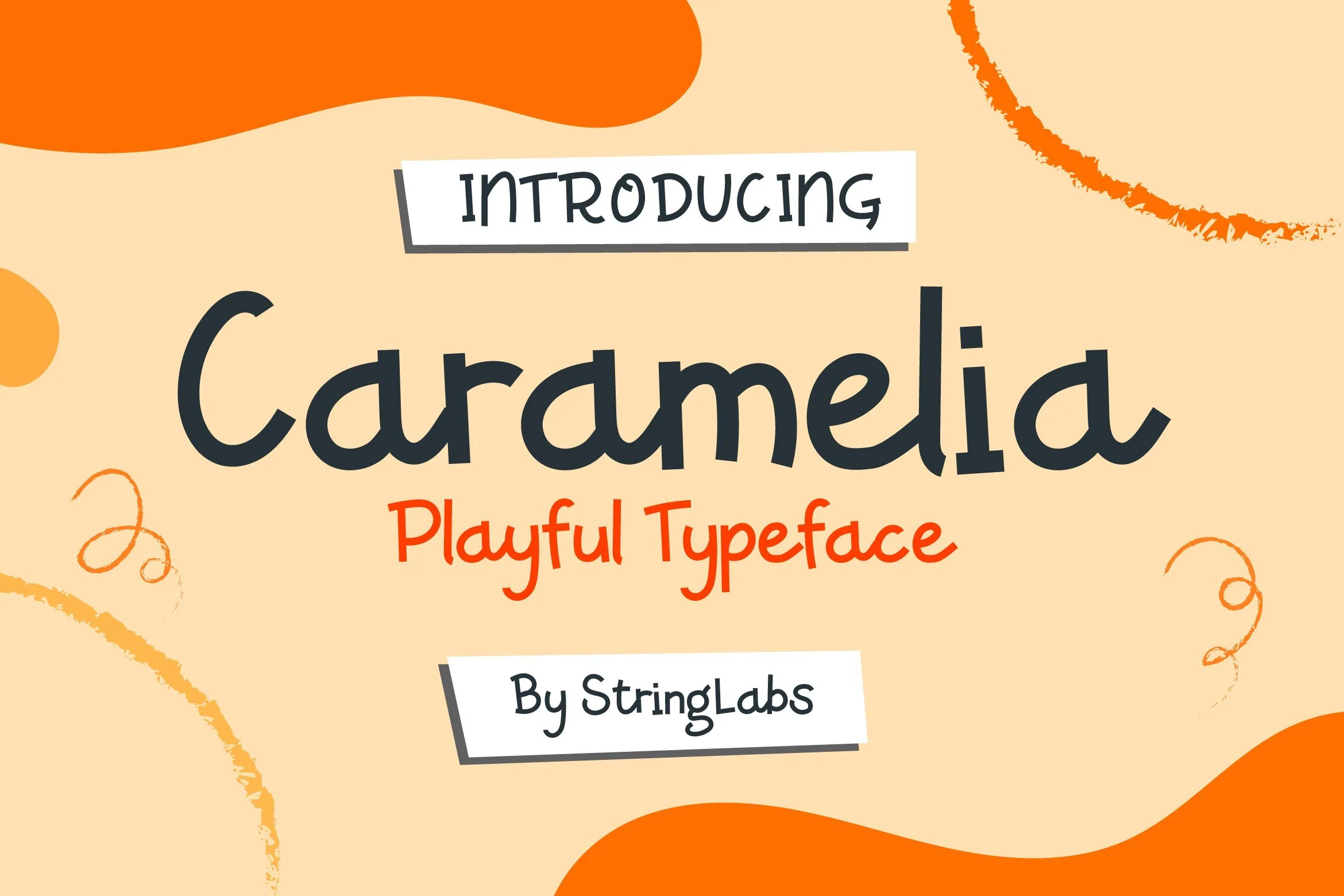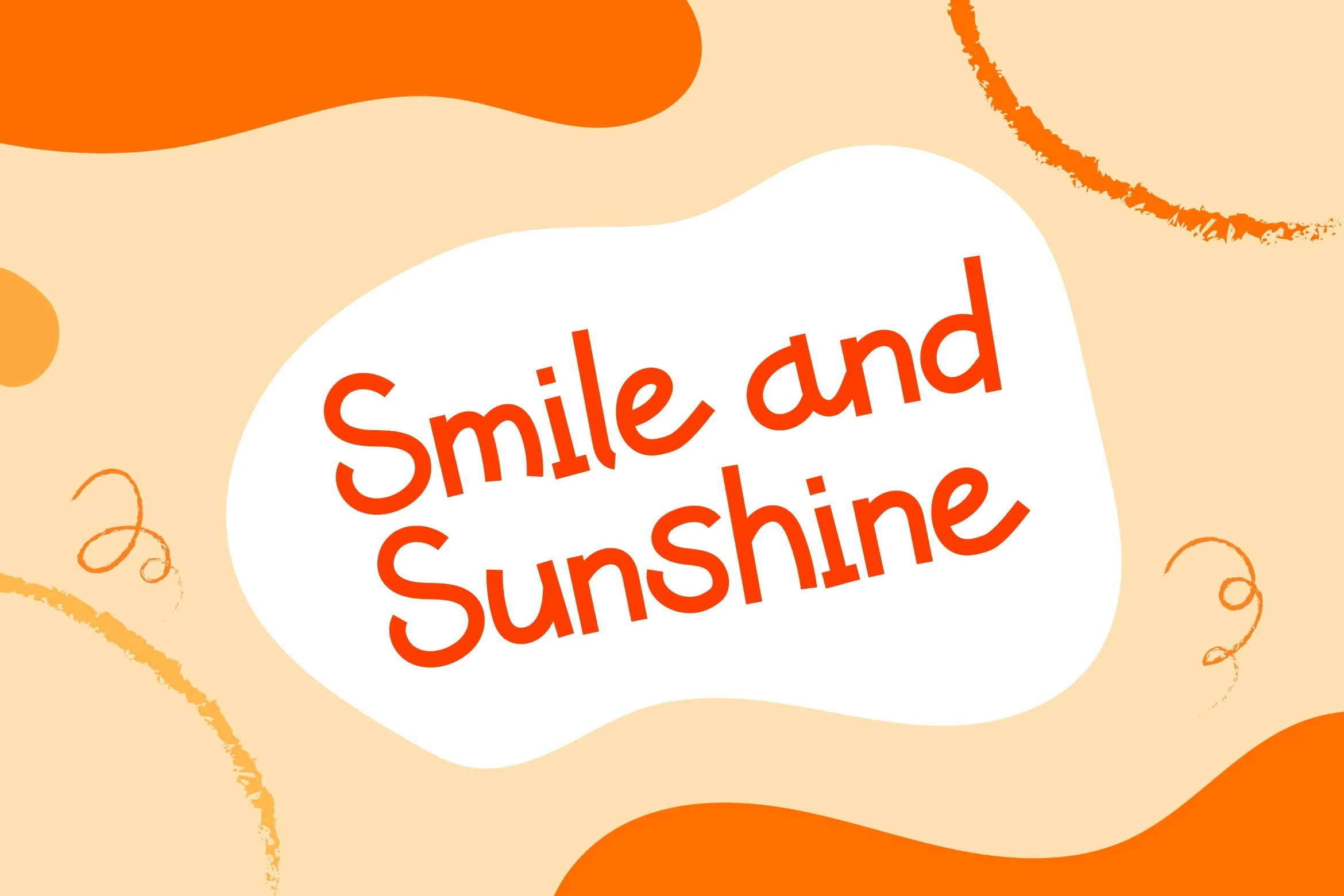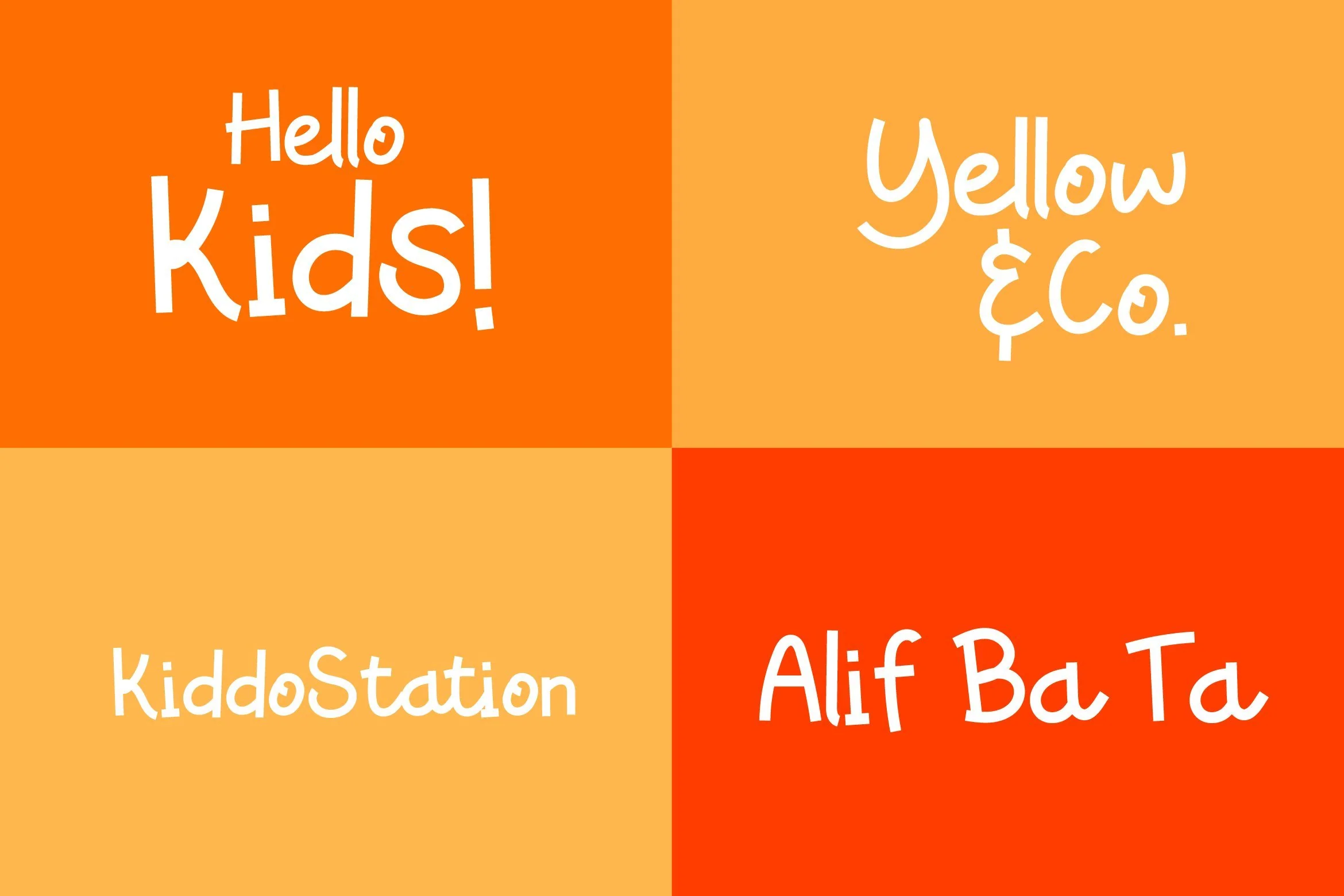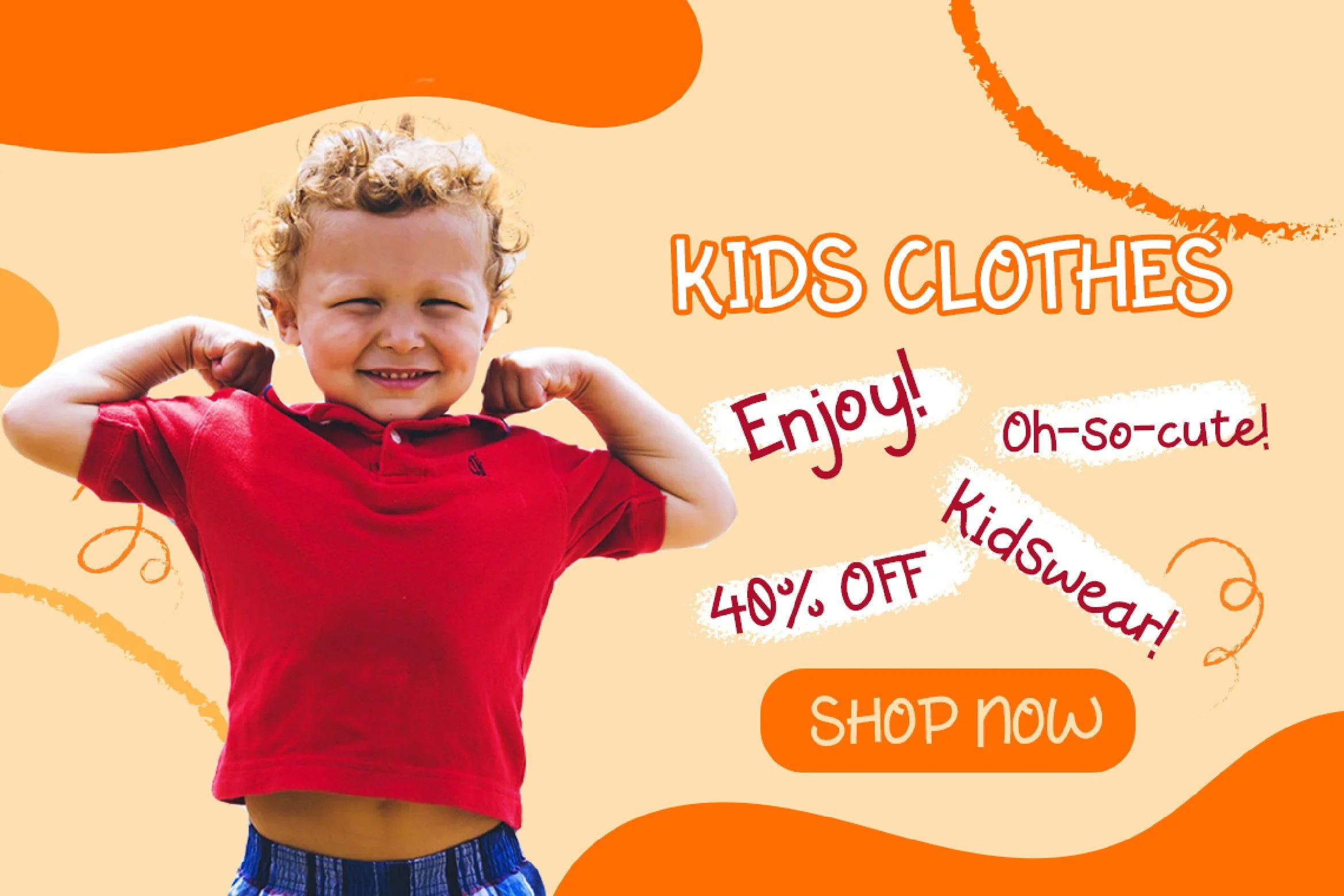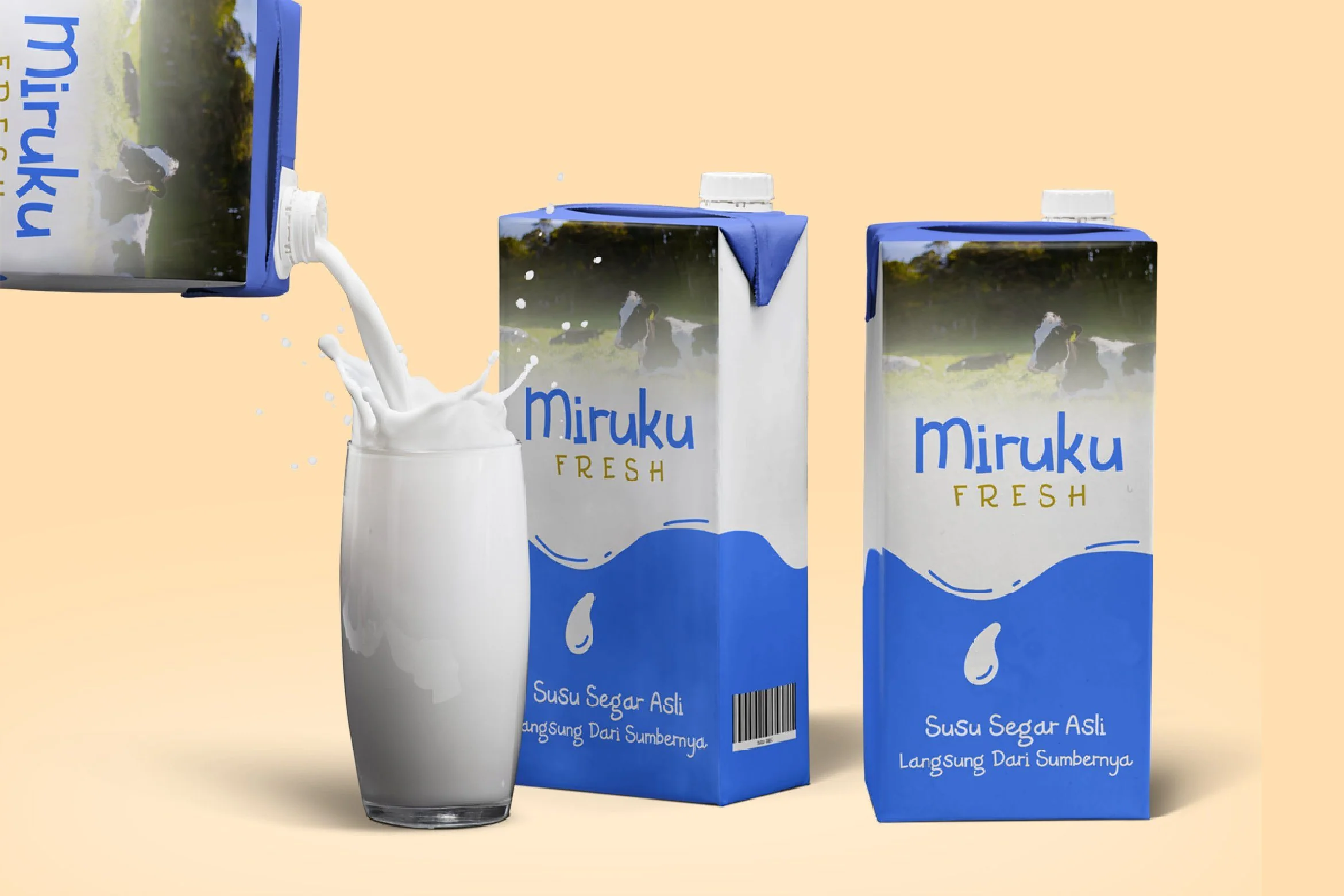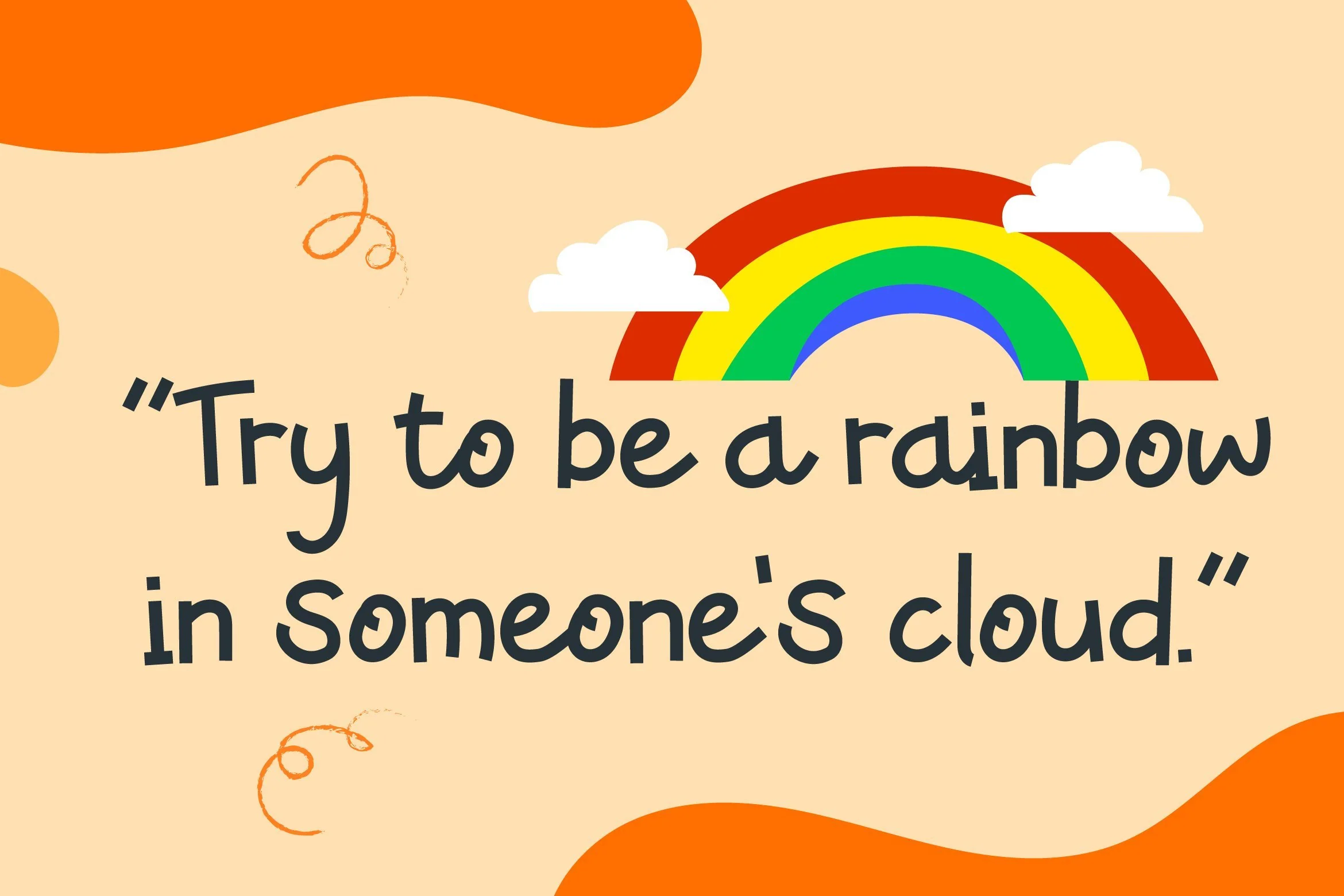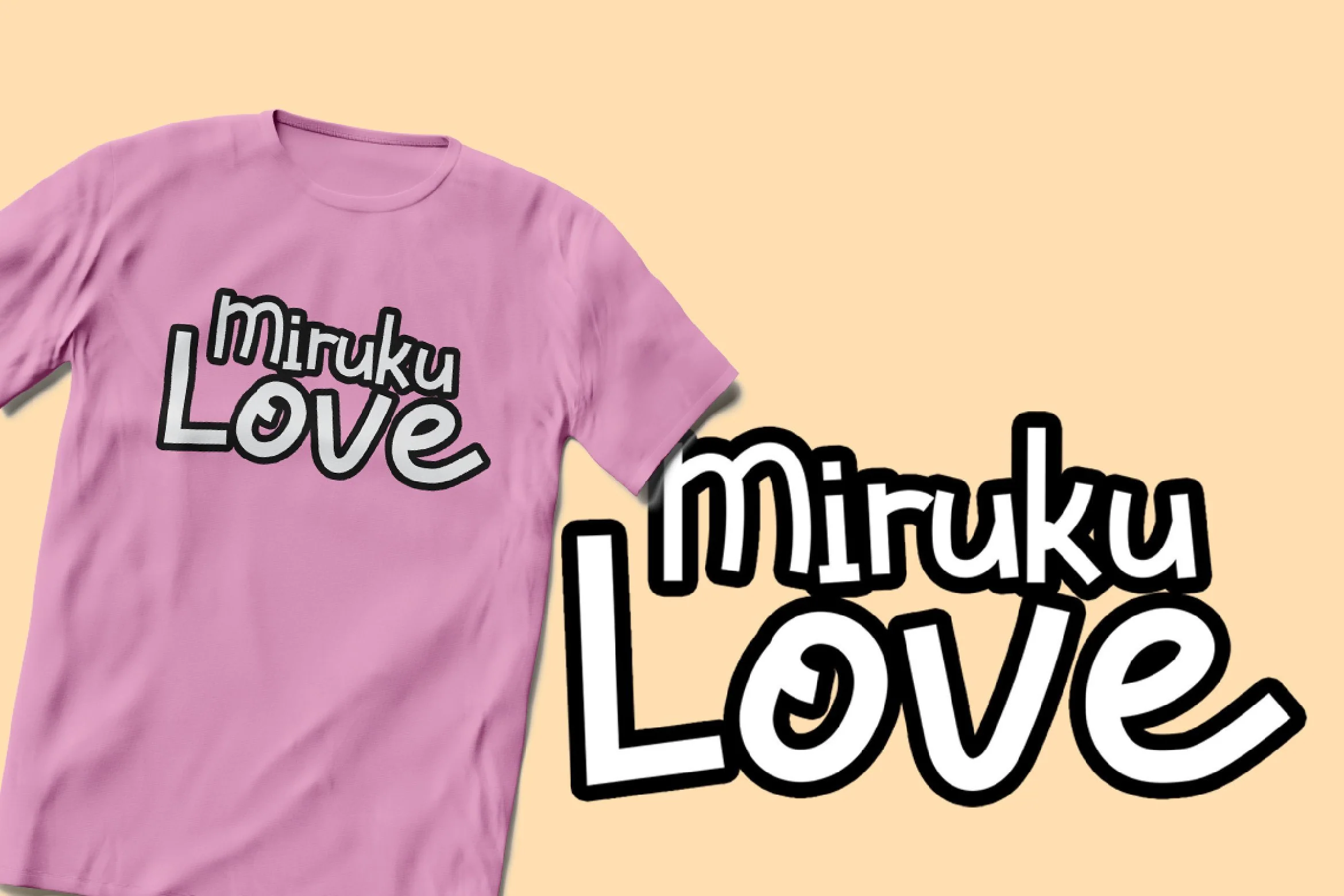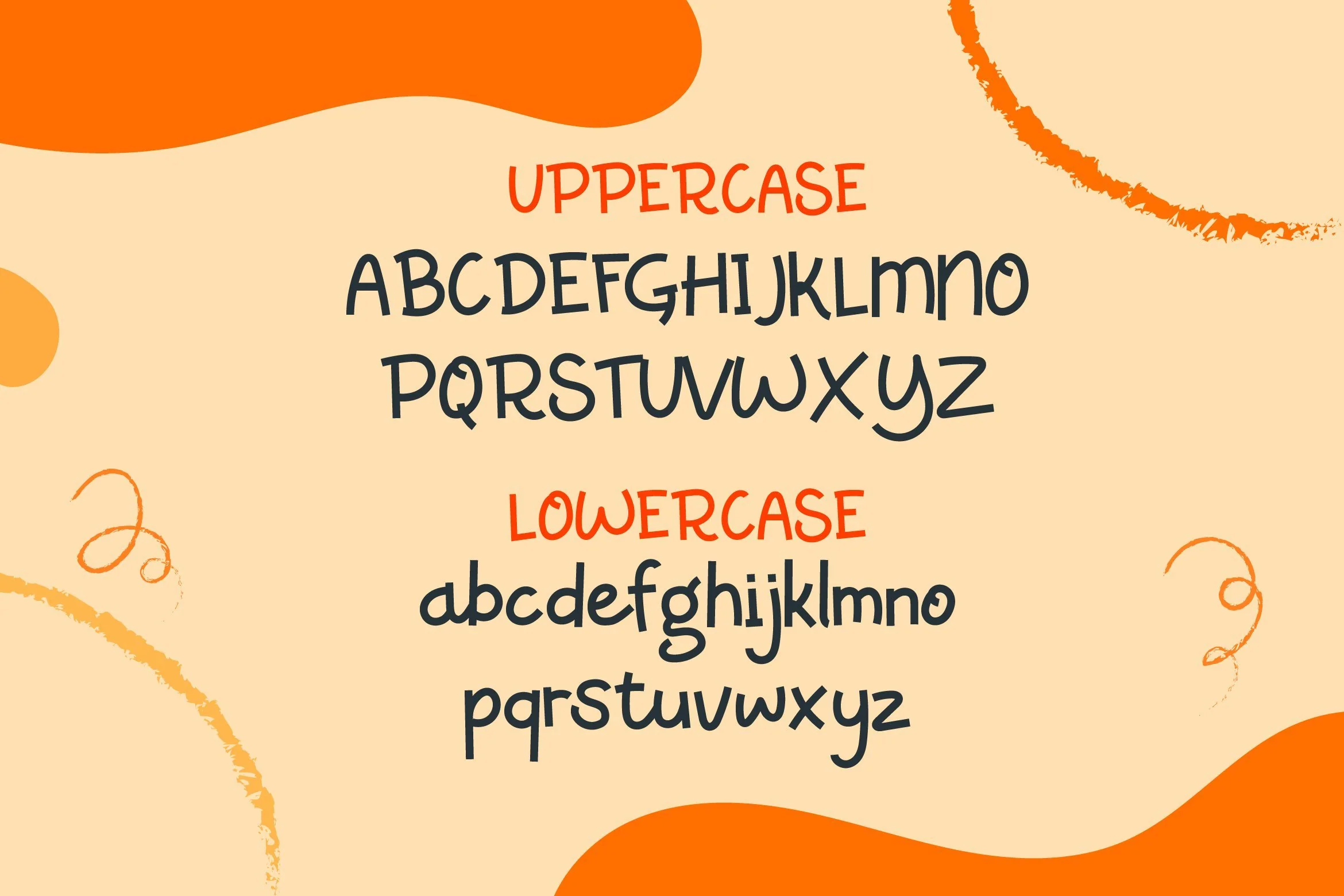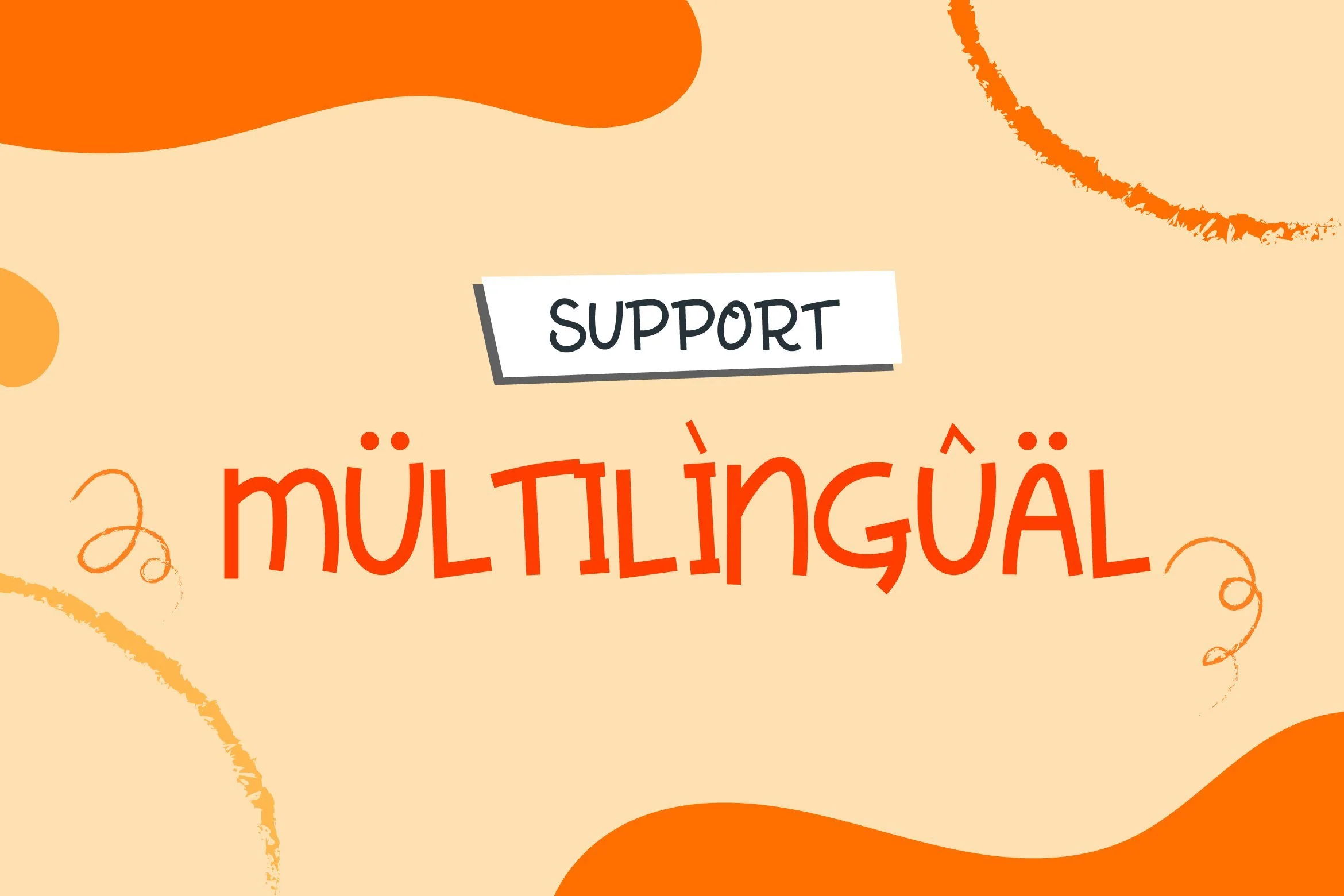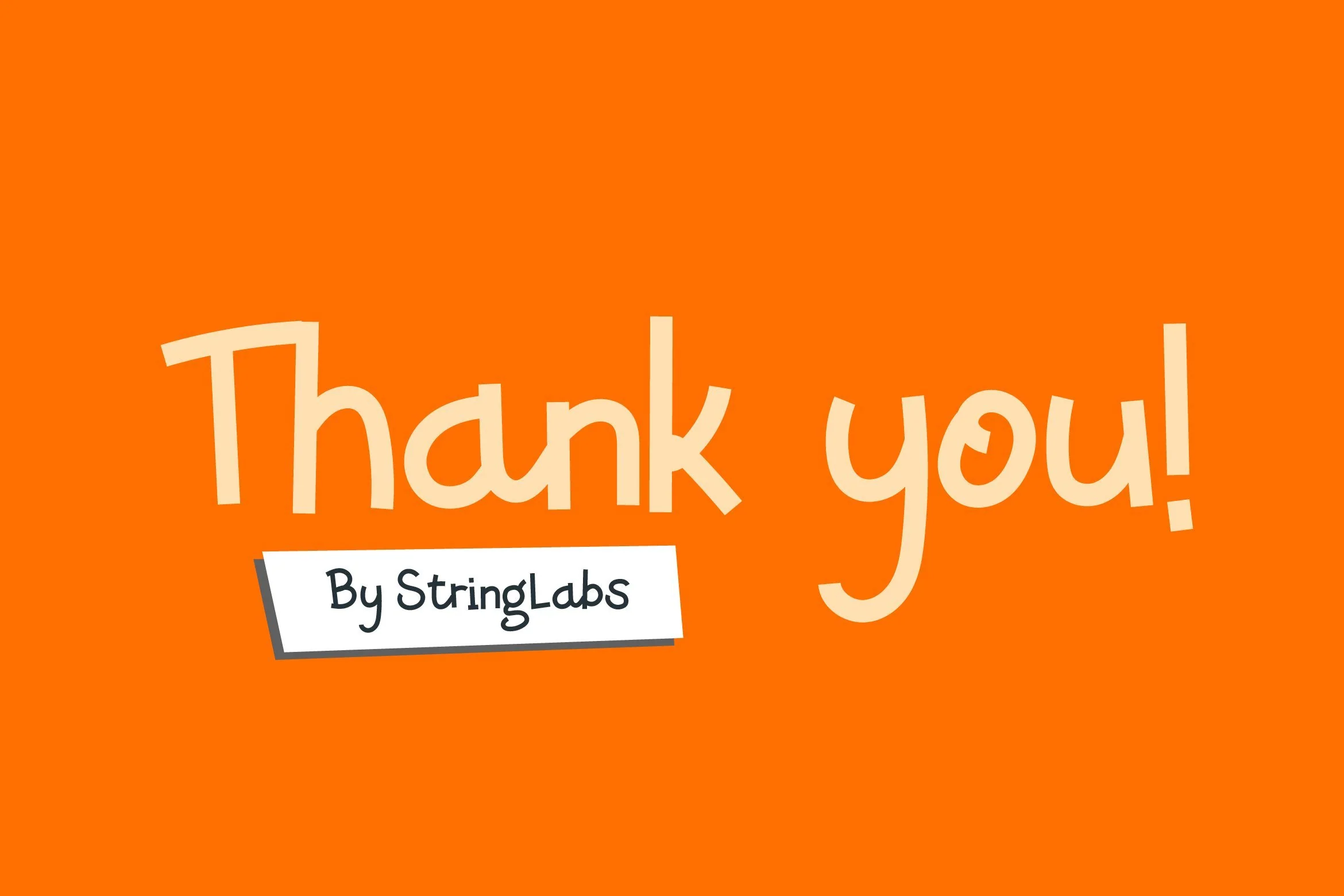
Caramelia - Playful Children Typeface
Introducing Caramelia - Playful Children Typeface
This font is perfect for those of you who want the style of children. Fonts Made specifically for purposes such as: Kindergarten, Birthday, Kid, Cartoon, Comic, Children, and Playground.
Introducing Caramelia - Playful Children Typeface
This font is perfect for those of you who want the style of children. Fonts Made specifically for purposes such as: Kindergarten, Birthday, Kid, Cartoon, Comic, Children, and Playground.